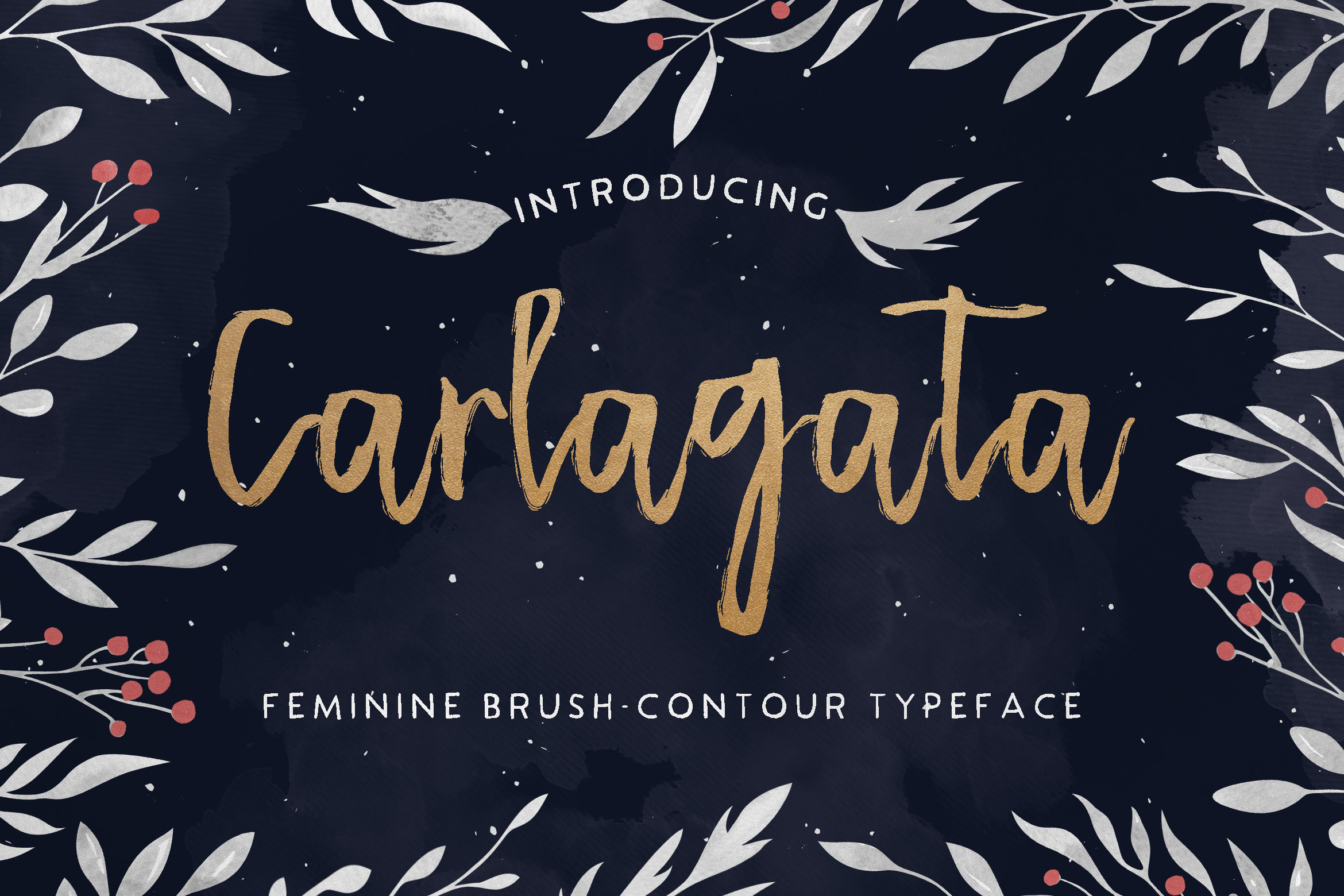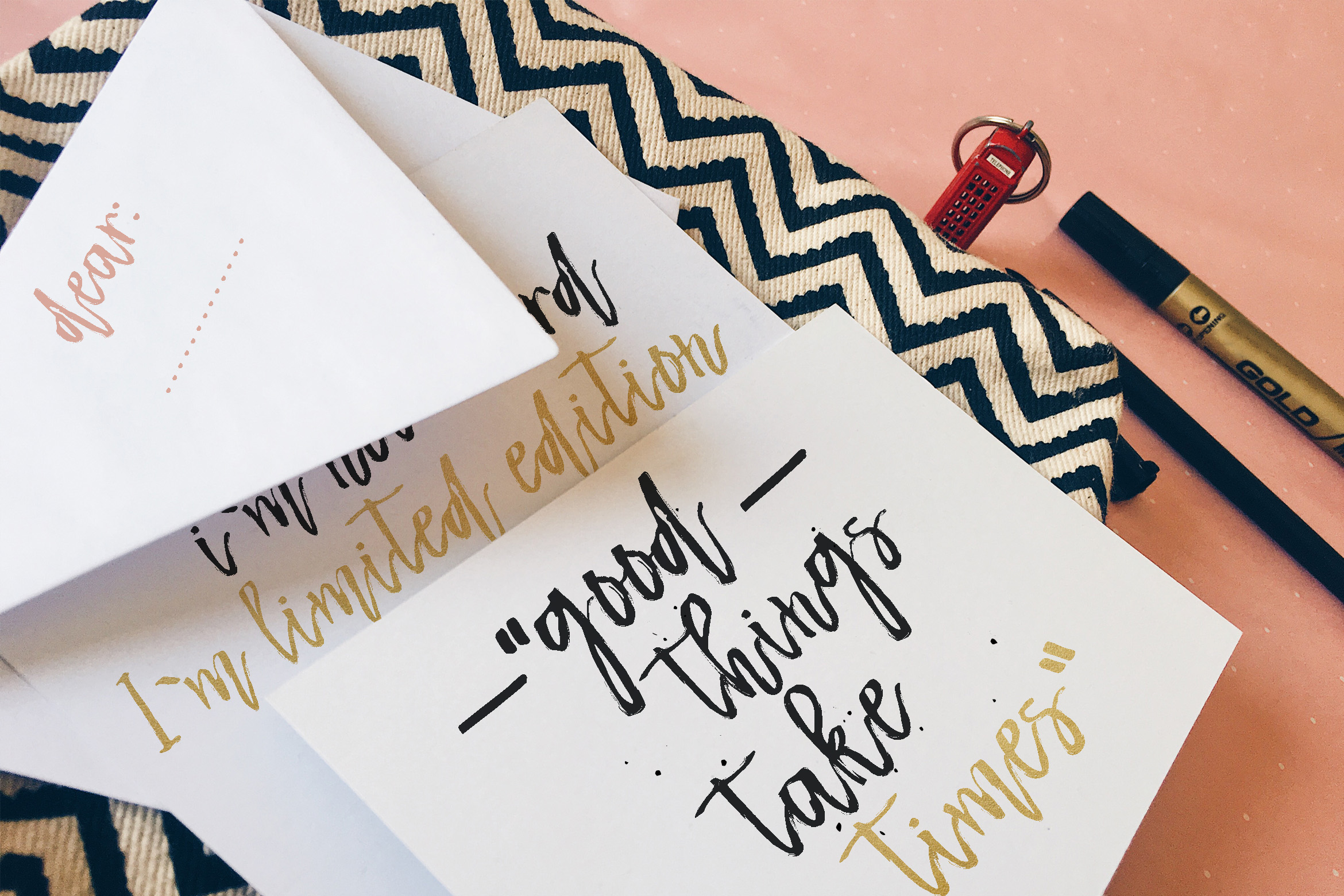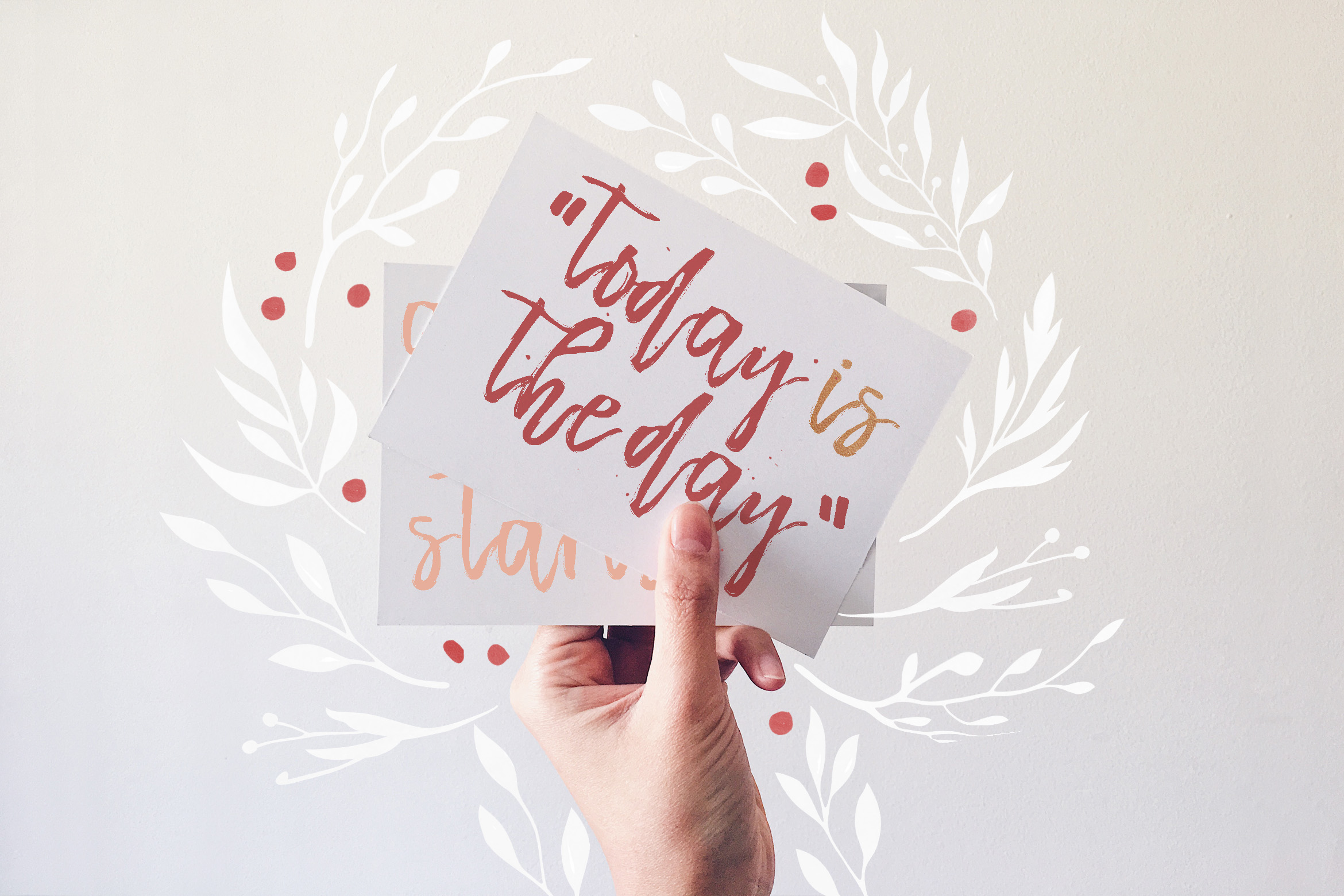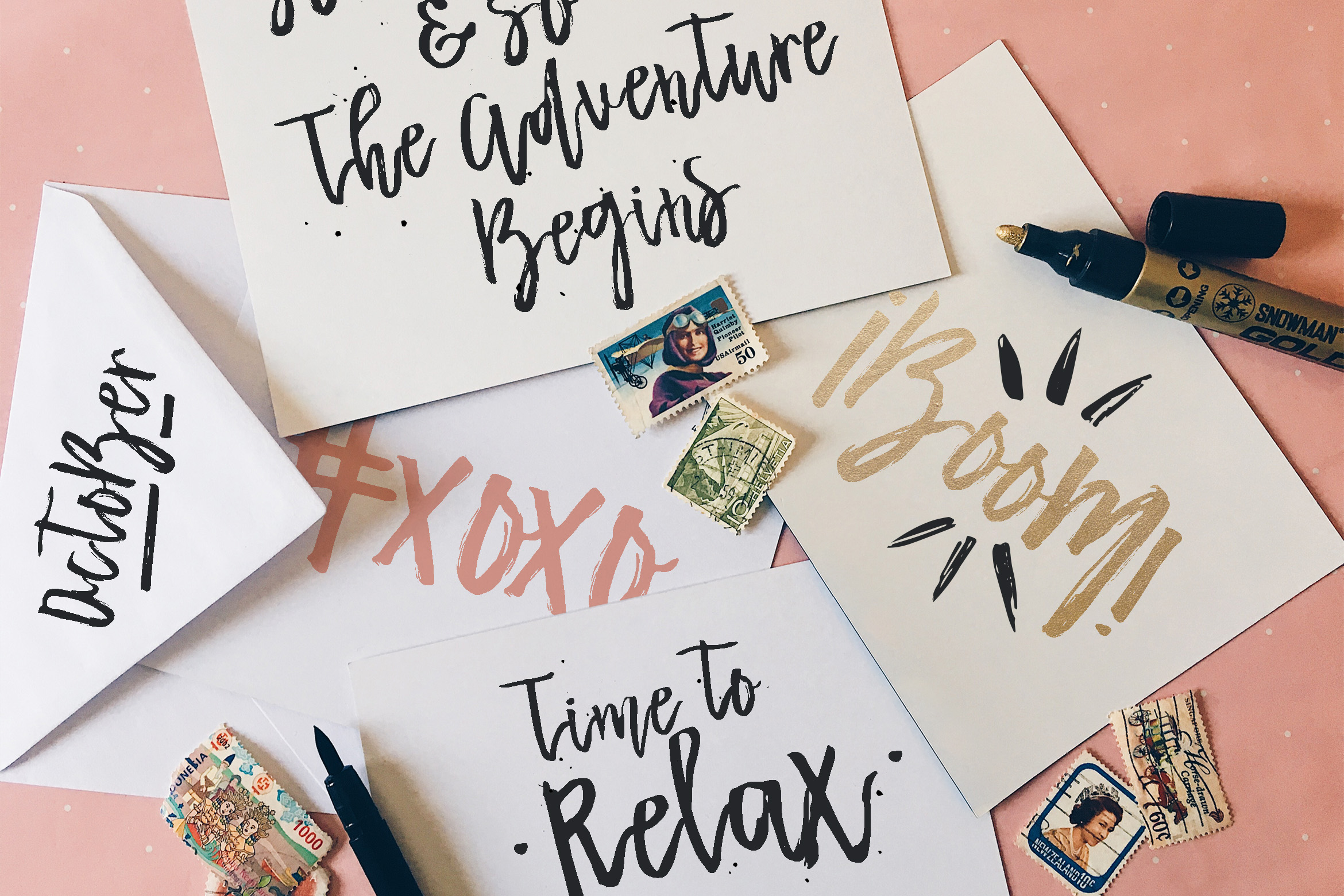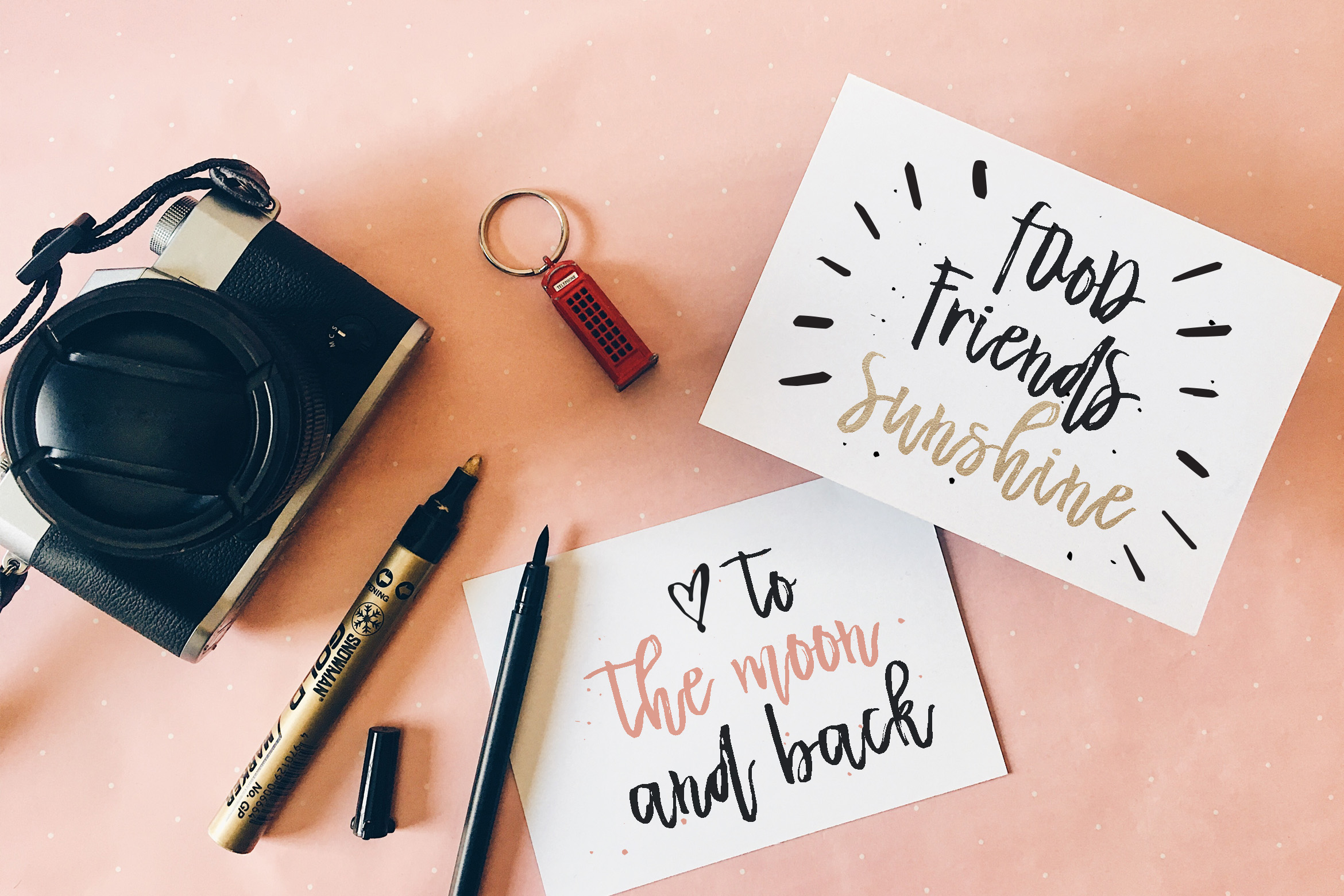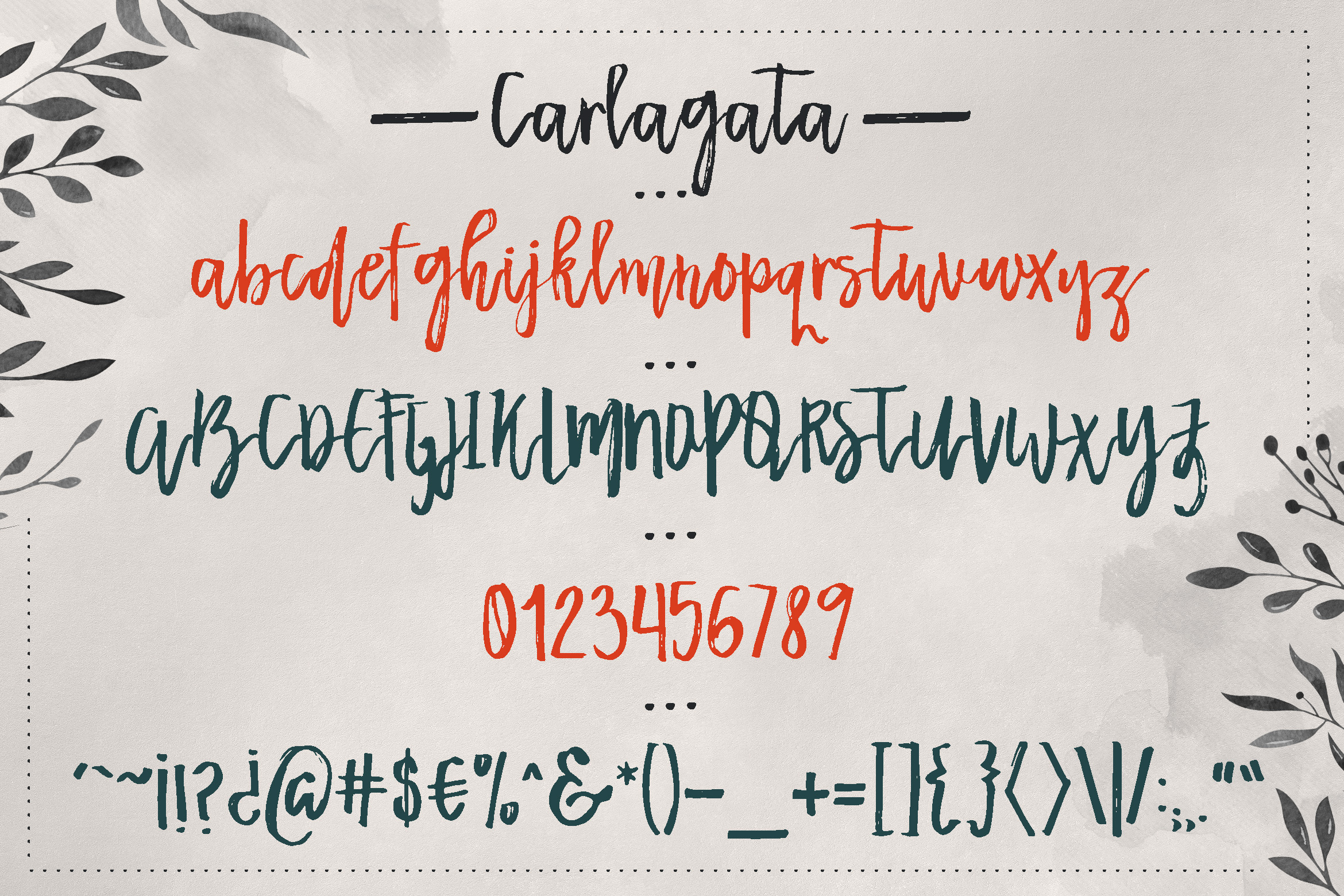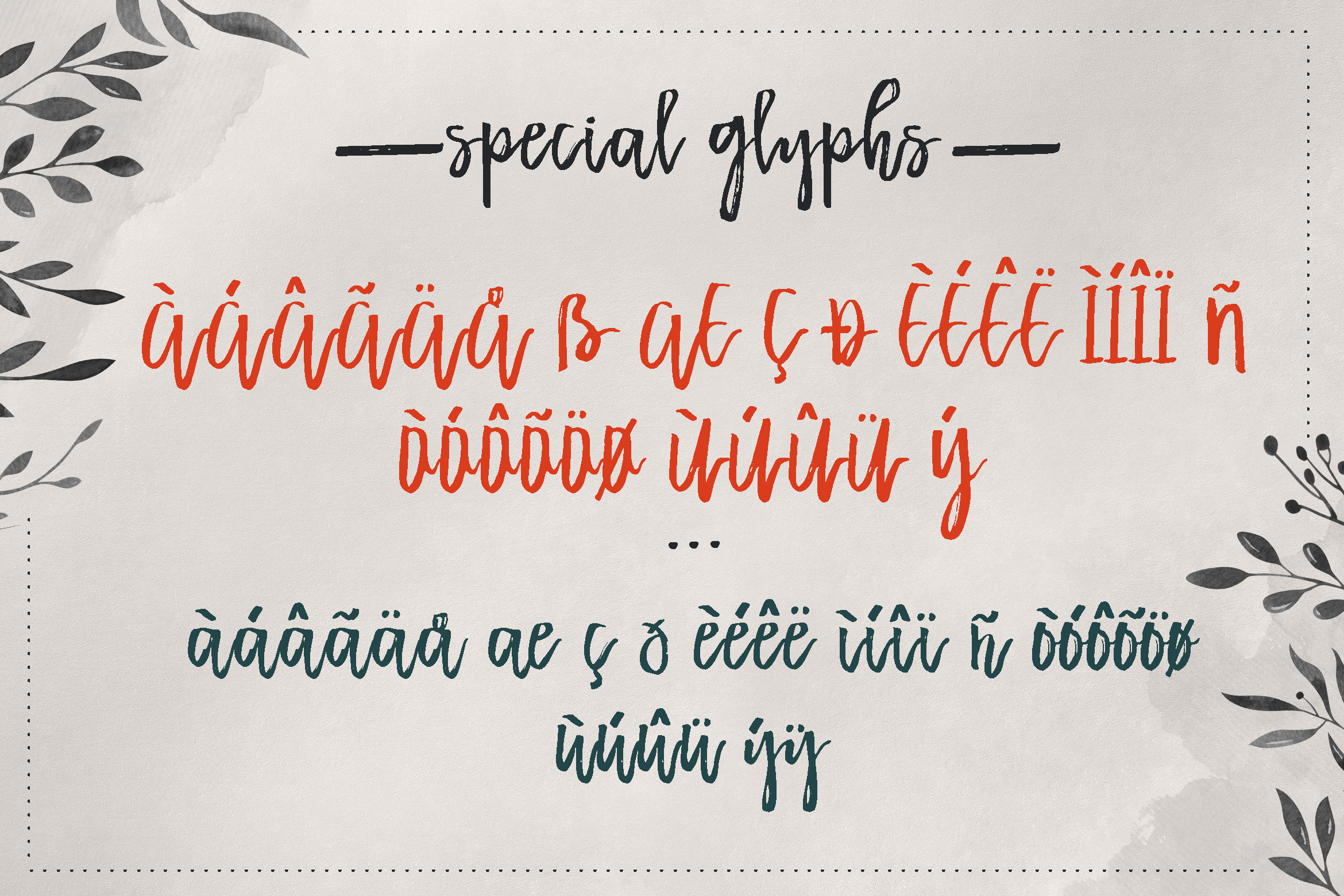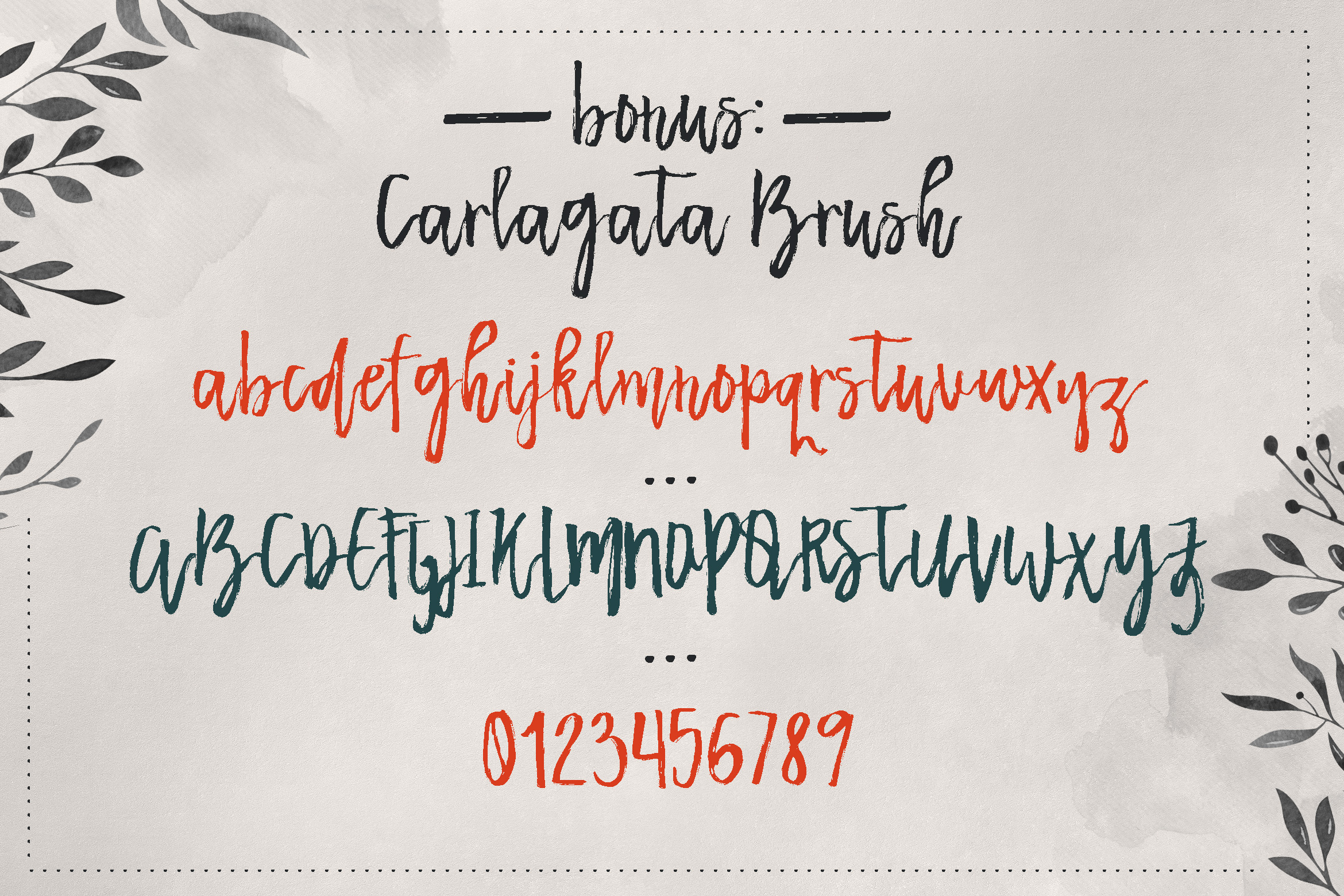
Carlagata Font
About Carlagata Font
Carlagata is a casual handwritten typeface with a brush texture effect that you can use for multiple purpose: blog, logo, title, poster, quotes, wedding cards & so forth, you decide!
Carlagata comes with accented glyphs for international language (check preview images to see which glyphs are included). It also includes a bonus font, the Carlagata Brush. This complementary typeface has a brush contour effect.